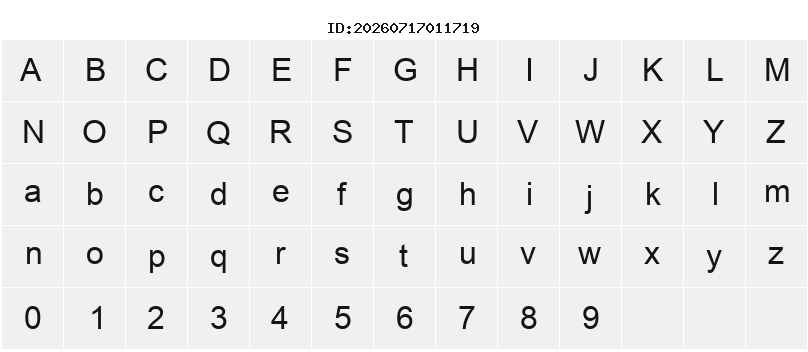
ARDS1 Preview
About ARDS1.ttf
ARDS1.ttf is a modern, elegant sans-serif font designed for ultimate readability and visual harmony. Perfect for branding, headlines, web design, and print materials.